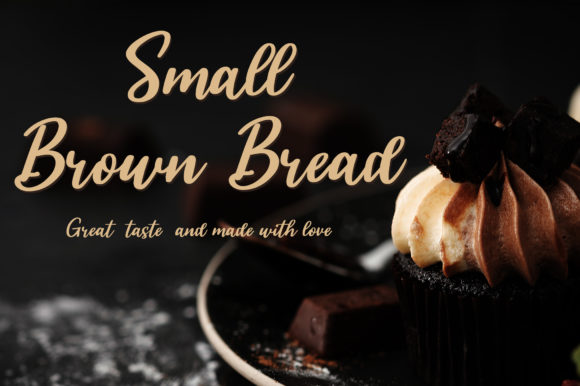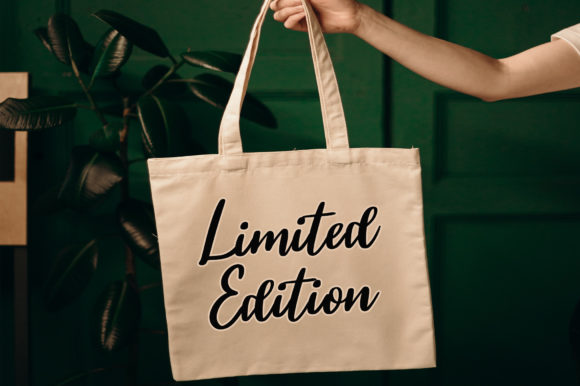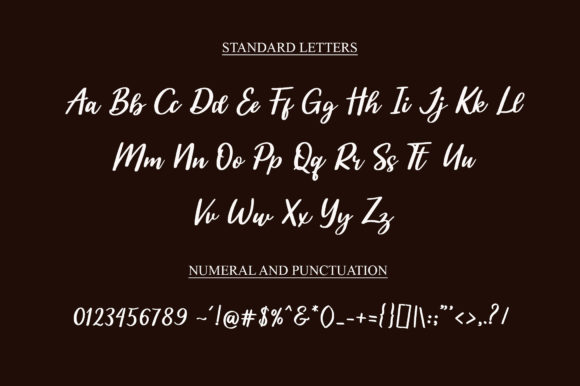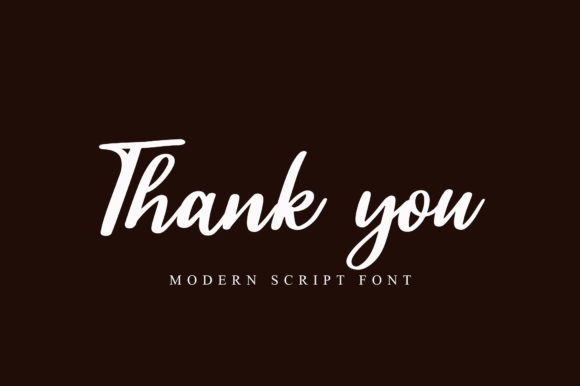
Introduction to Black Stune Font
Black Stune is an elegant script font with a contemporary atmosphere and impeccable form, inspired by timeless classic calligraphy.
Not too thin and not too thick, balanced and varied, this font was designed to enhance the beauty of your projects .
Key Features of Black Stune Font